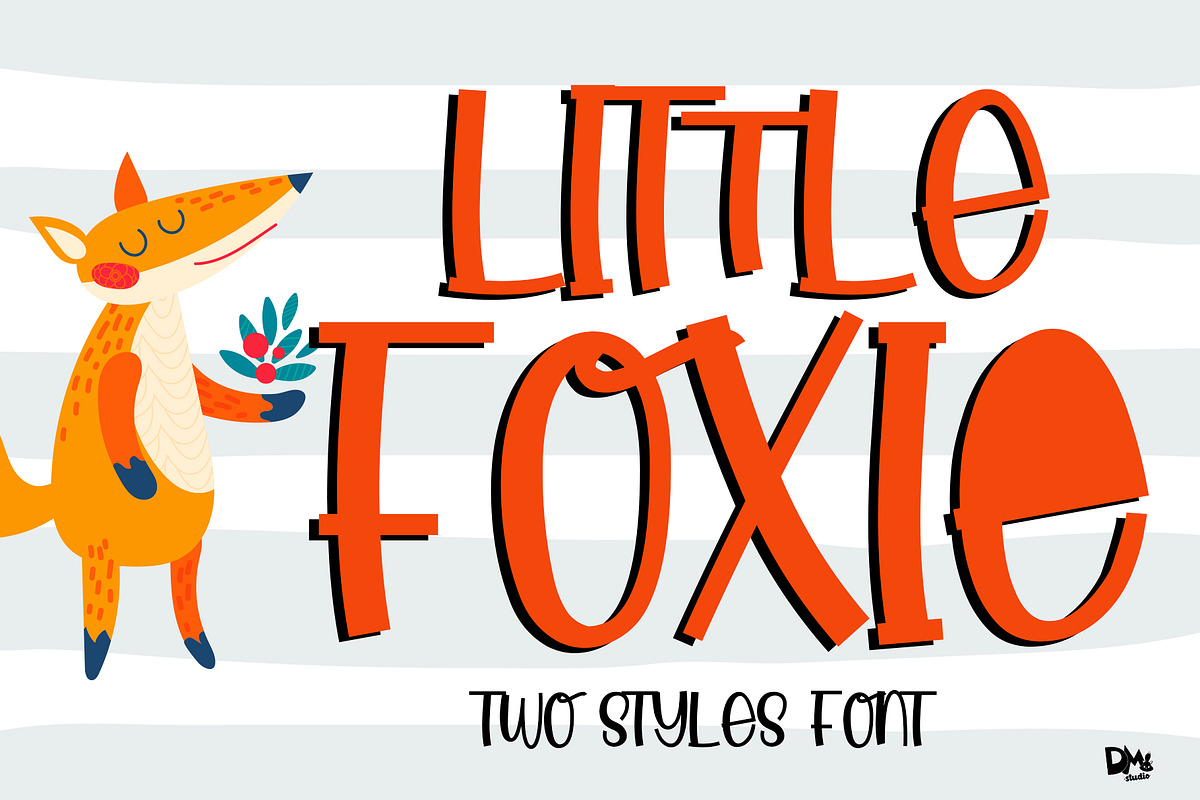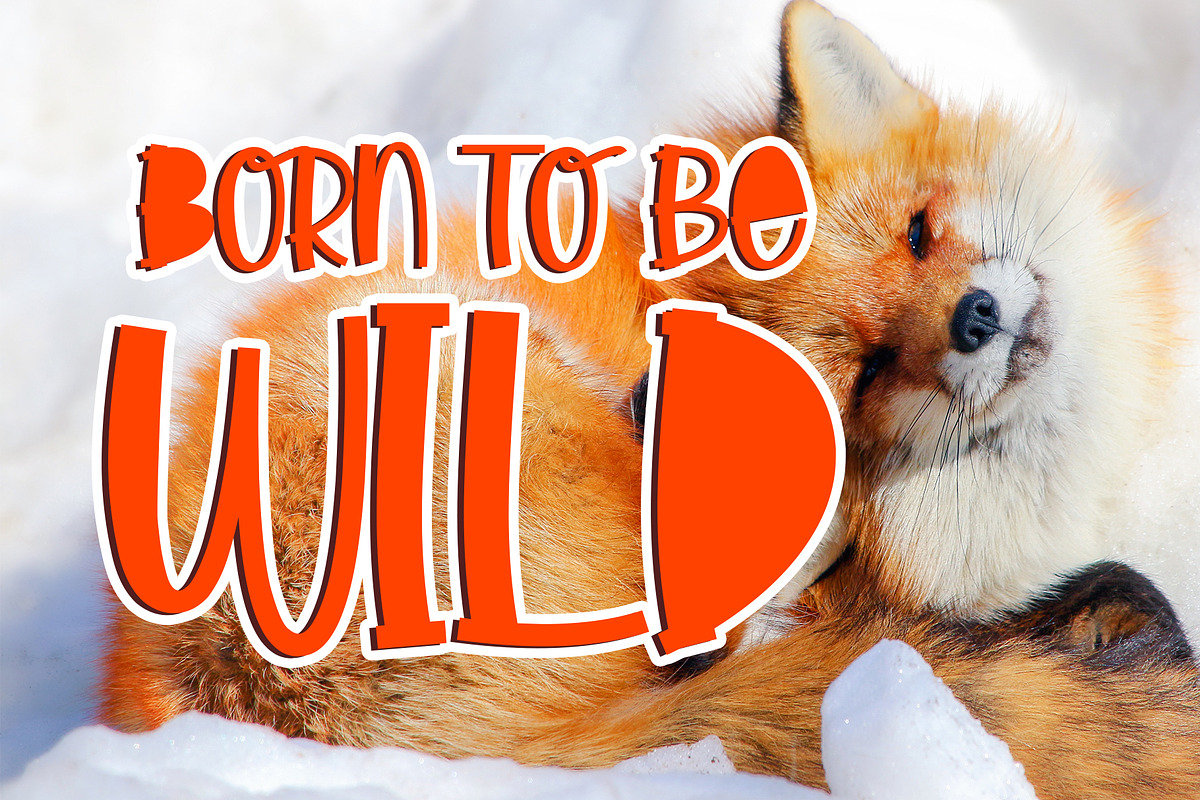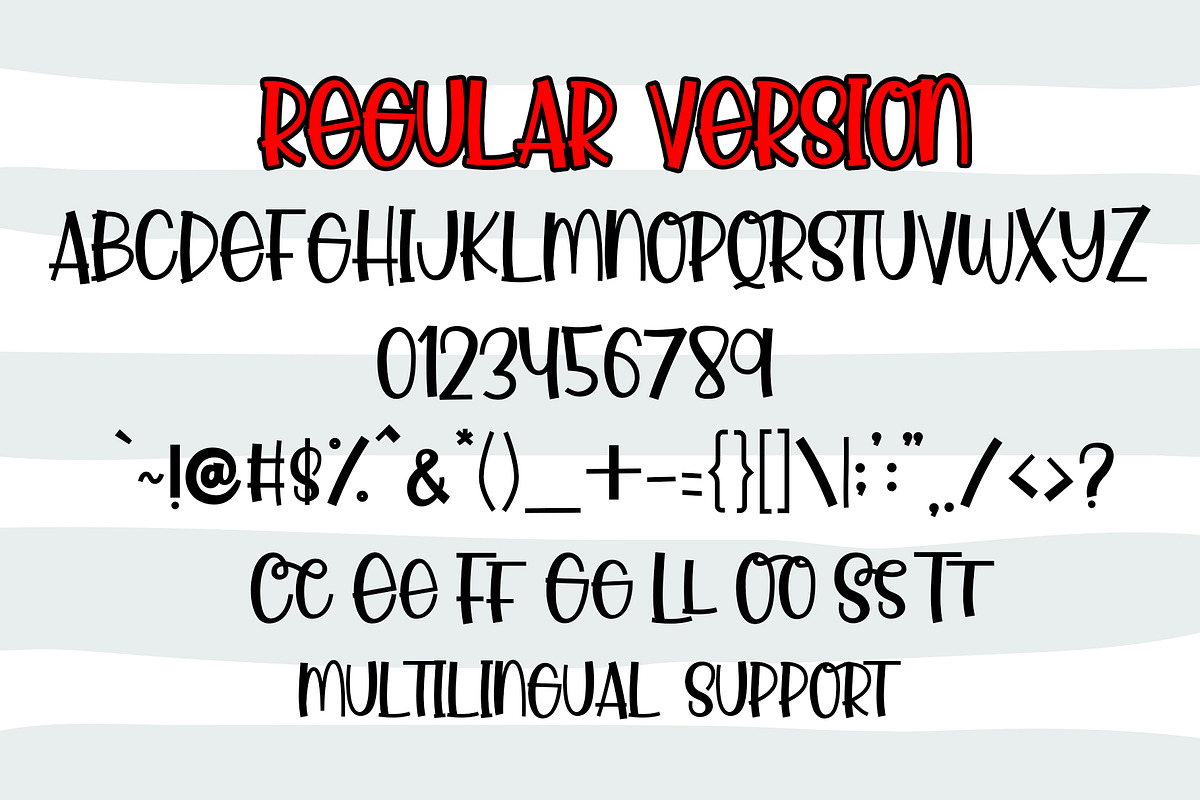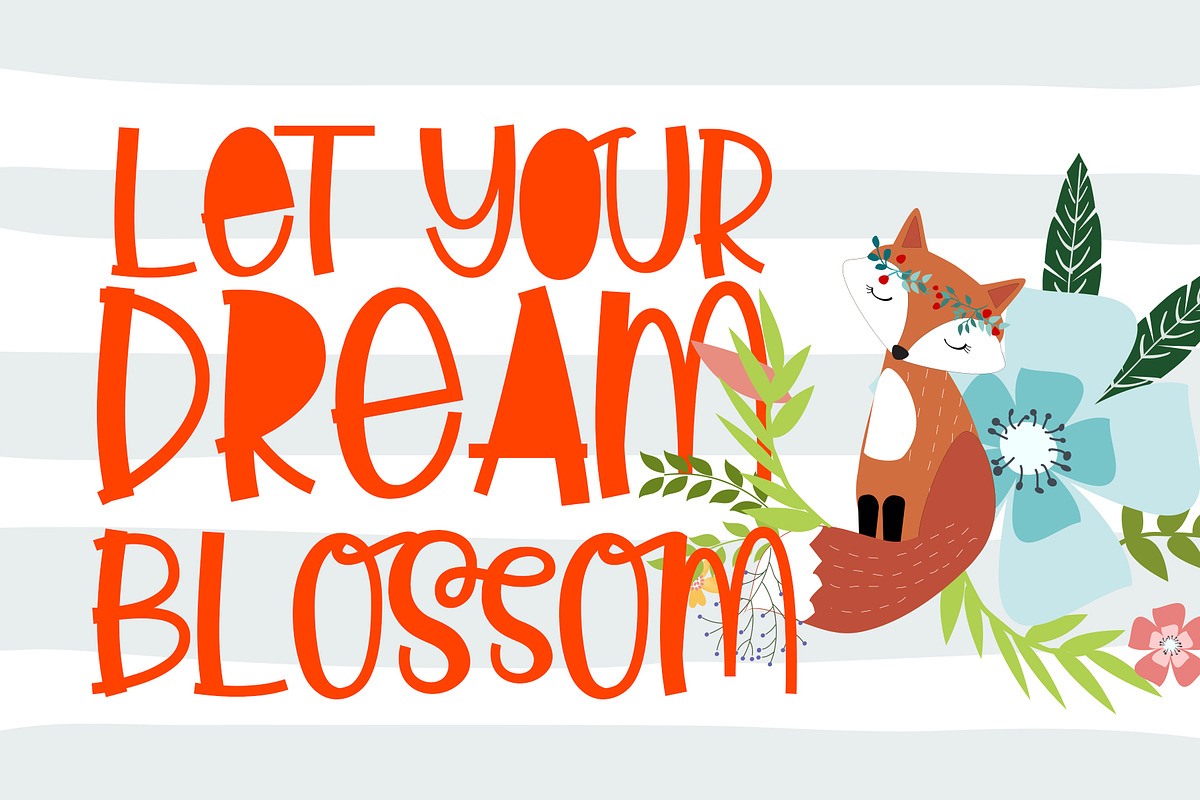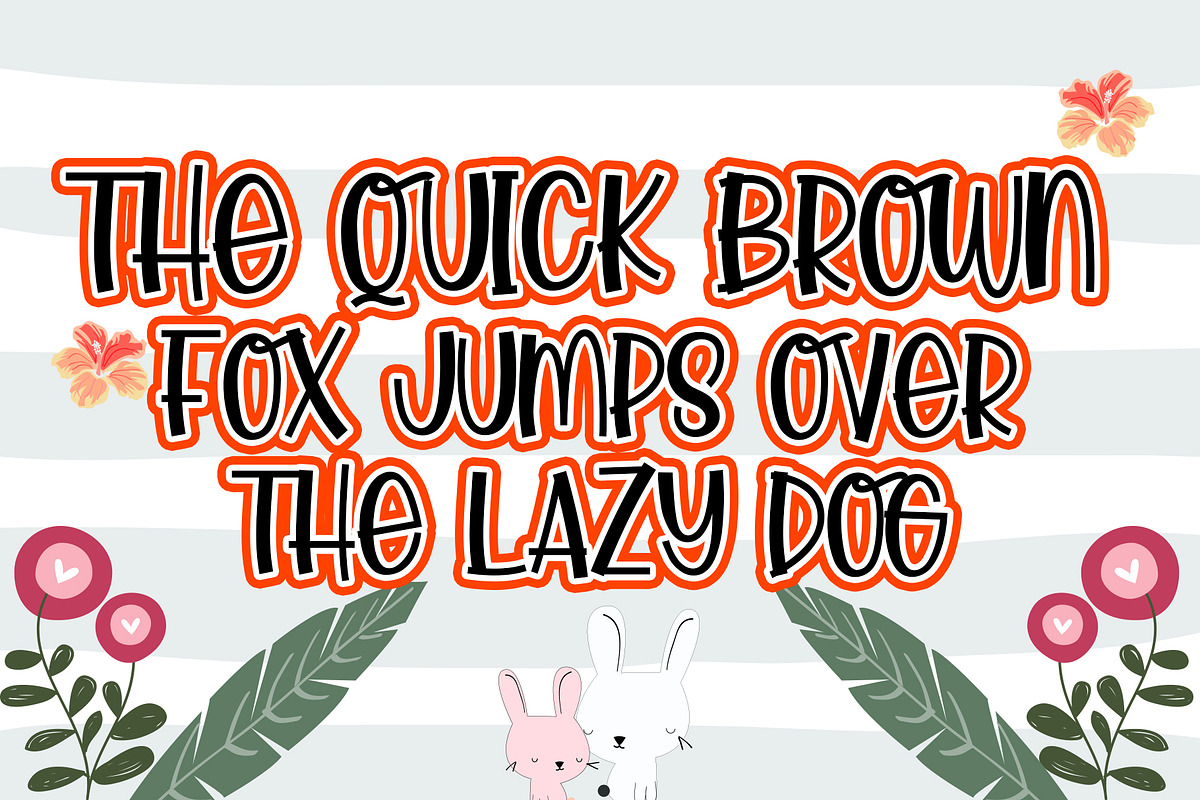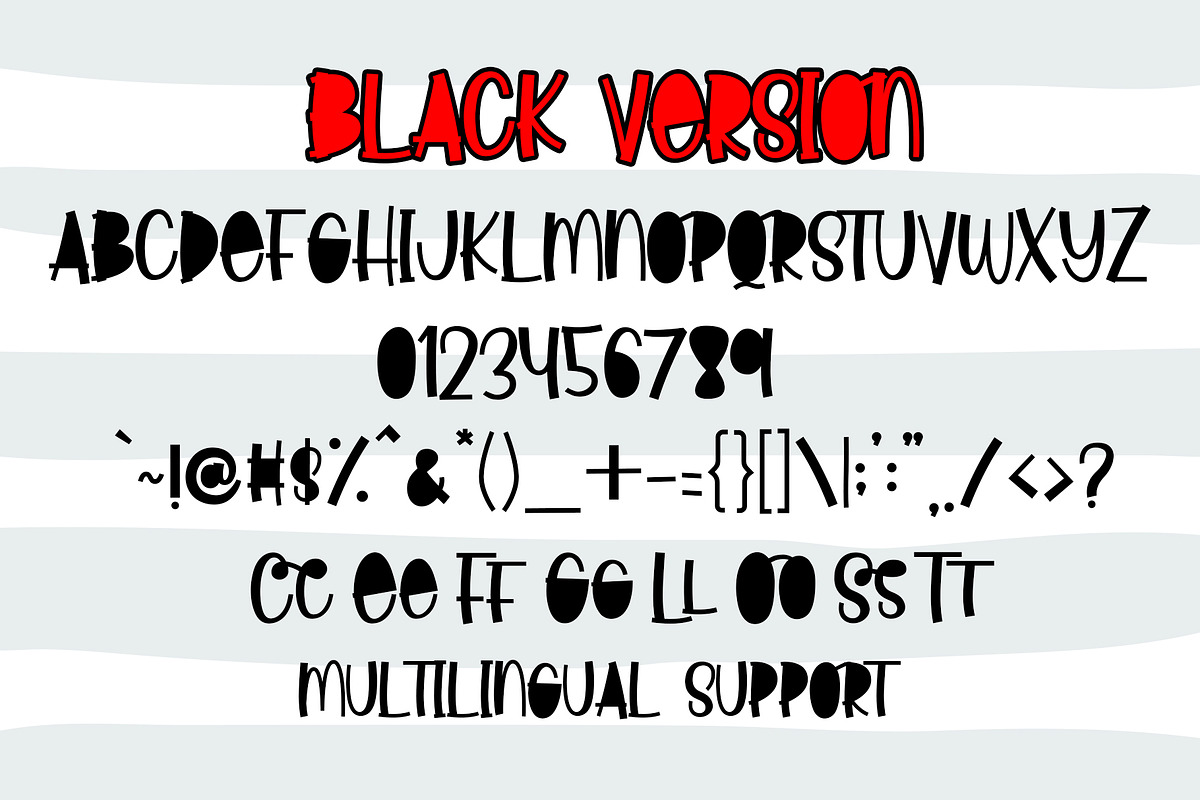
Little Foxie - Two Styles Font
New release! The sweet, clean and crafty Little Foxie Font! Comes with two versions, Regular and Black Version.
All in Caps Characters
2 Styles version, Regular and Black
- Comes with two versions, Regular and Black Version.
- All in Caps Characters
- Numeric
- 2 Styles version, Regular and Black